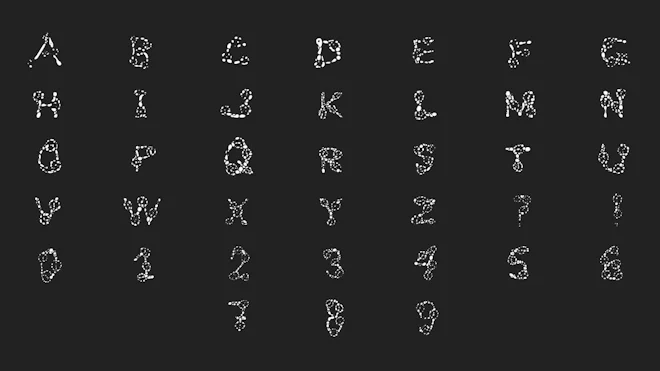
This stock motion graphics video pack includes 38 different clips of hand-drawn white brush-stroke letters, numbers and symbols on a transparent alpha channel in a seamless loop.